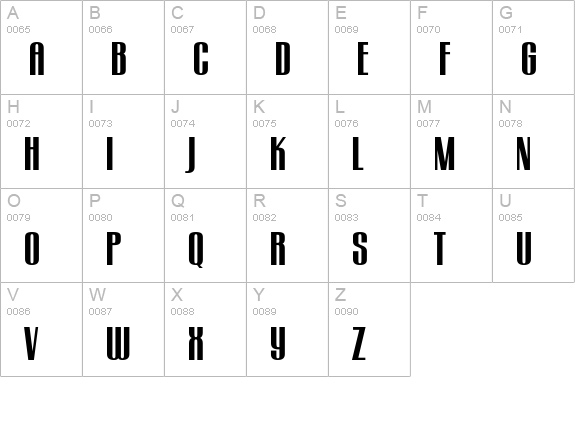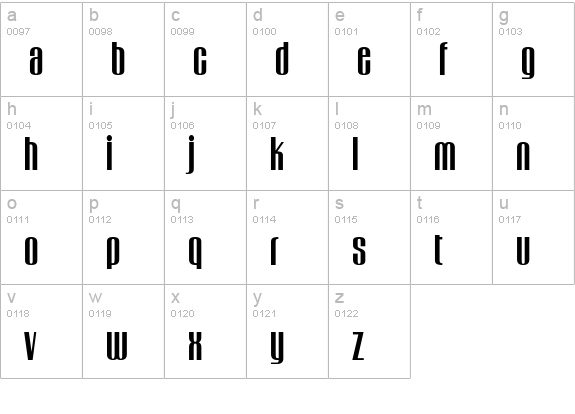
gogo•big Font Details
Introducing gogo•big font, a stunning display typeface that commands attention with its bold and stylish design. This versatile font is perfect for a wide range of projects, from eye-catching posters to impactful branding materials. With its unique blend of modernity and sophistication, gogo•big is sure to make a statement wherever it is used. The best part? gogo•big font is available for free download at FontsMarket.com! That's right, you can add this dynamic font to your collection without spending a dime. Don't miss out on the opportunity to elevate your designs with this striking typeface. Download gogo•big today and let your creativity soar to new heights!